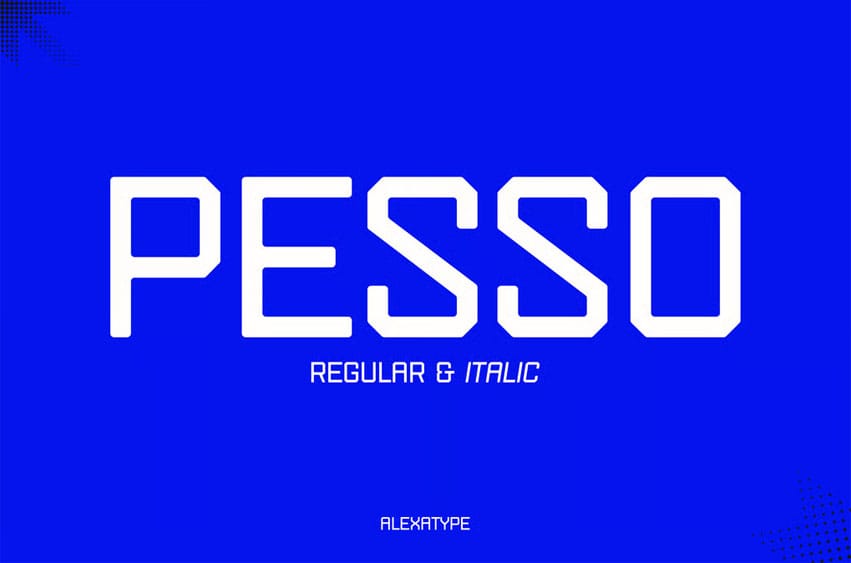
Pesso Font Digital Font Step into the world of pixel-calculated accuracy with PESSO—a modern digital typeface designed for clarity and modular rhythm. With squared shapes, geometric curves, and a compact grid-like spacing system, PESSO feels like it was coded for modern interfaces and digital futures. It’s structured for high-tech layouts and contemporary design systems with clear information flow. This font thrives in tech brands, digital product packaging, SaaS dashboards, signage systems, and minimalist interface UIs. Its squared terminals, compact alignment, and ultra-legible forms bring order and harmony to every visual element.
Whether you’re working on futuristic branding, UI display systems, or motion design templates, PESSO offers the modular consistency and professional confidence your projects need. From tech startups to code-themed marketing, this typeface speaks in pure signal with zero noise.
- Engineered Grid Forms – Highly legible forms with modular construction for consistent vertical/horizontal alignment
- Optimized for UI & UX – Designed for seamless implementation in apps, dashboards, and product displays
- Futuristic Energy – Minimalist yet expressive, perfect for modern SaaS and tech identities
- Two Weights: Regular & Italic – Fully usable as primary and secondary typographic systems
- Clear Pixel Harmony – Ideal for screen-based projects, signage systems, and UI wireframes